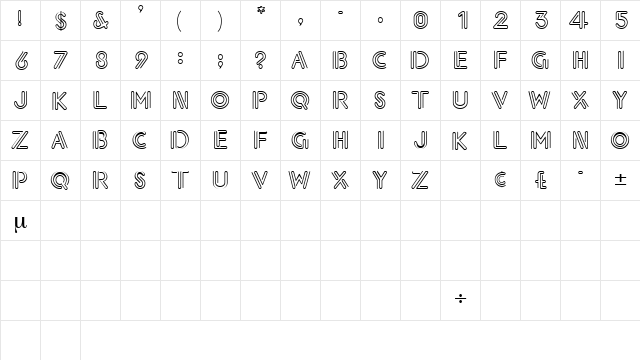
NeonDisplayCapsSSK Regular
Design Context for NeonDisplayCapsSSK Typeface
NeonDisplayCapsSSK channels digital-age aesthetics through its sharp, structured letterforms — ideal for brands that want to signal innovation.
Pro Tip: Try NeonDisplayCapsSSK with generous letter-spacing in UI labels and navigation — the geometric forms benefit from room to breathe.